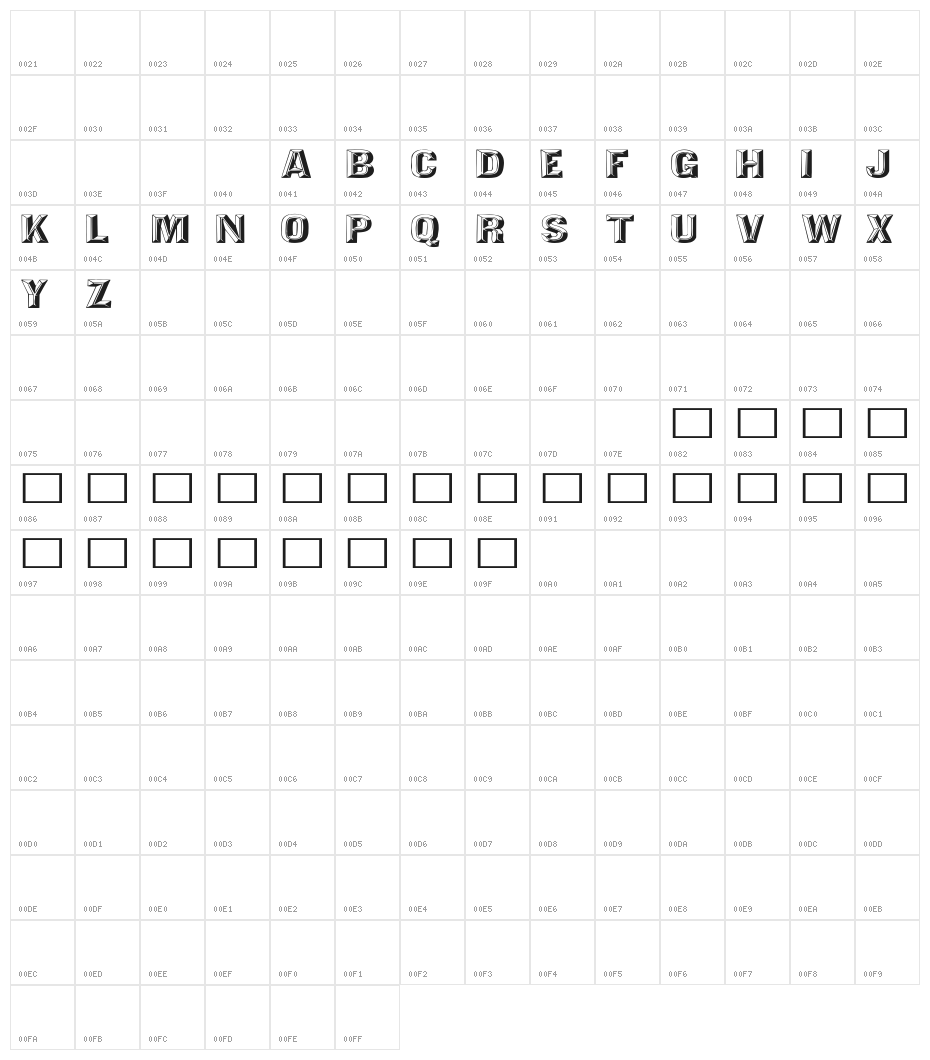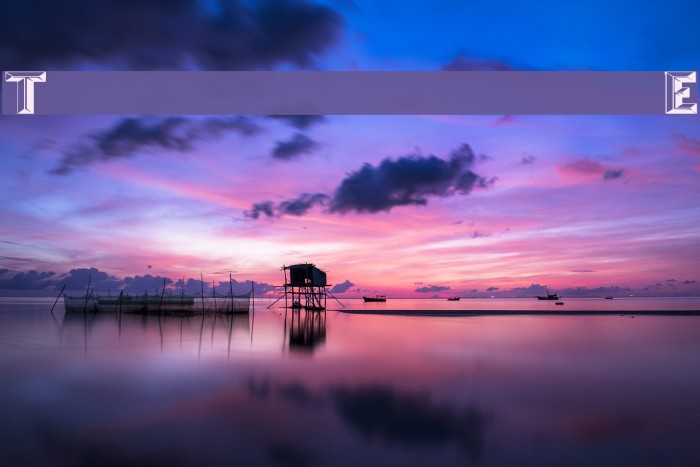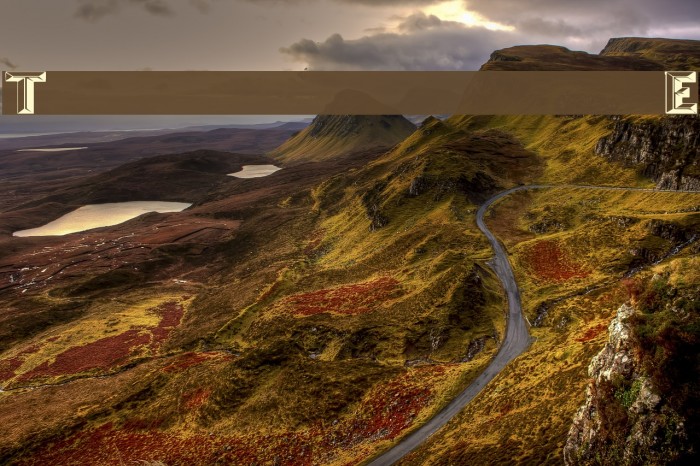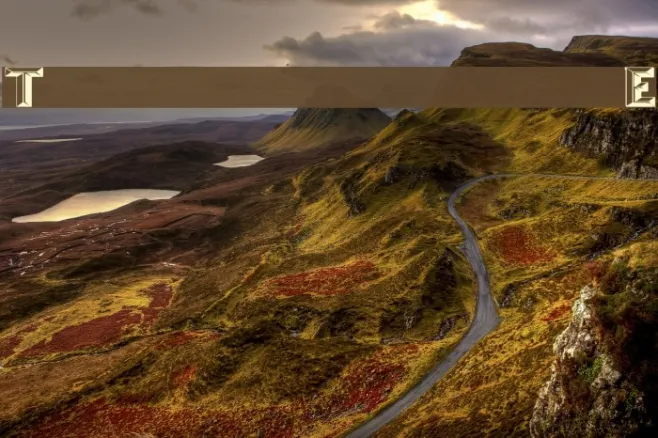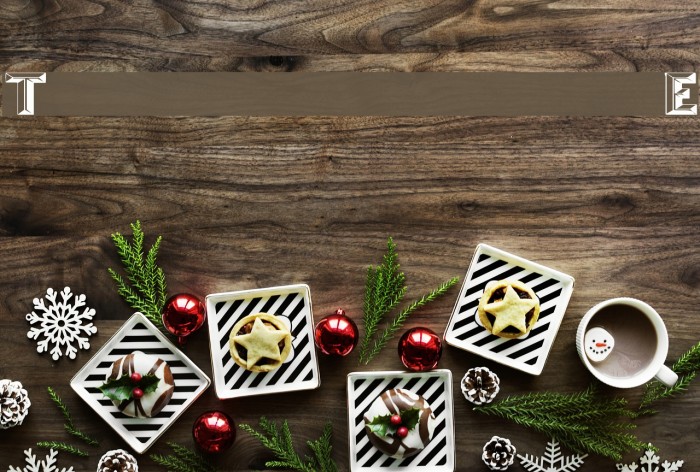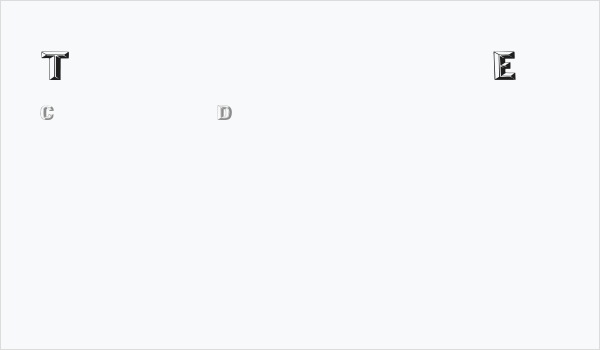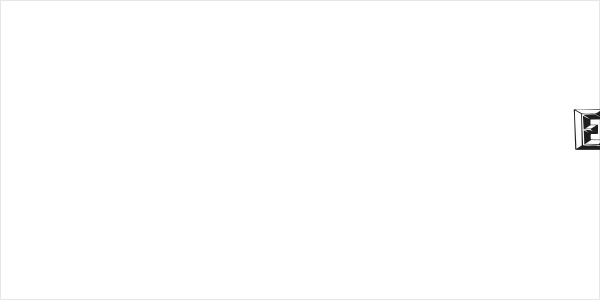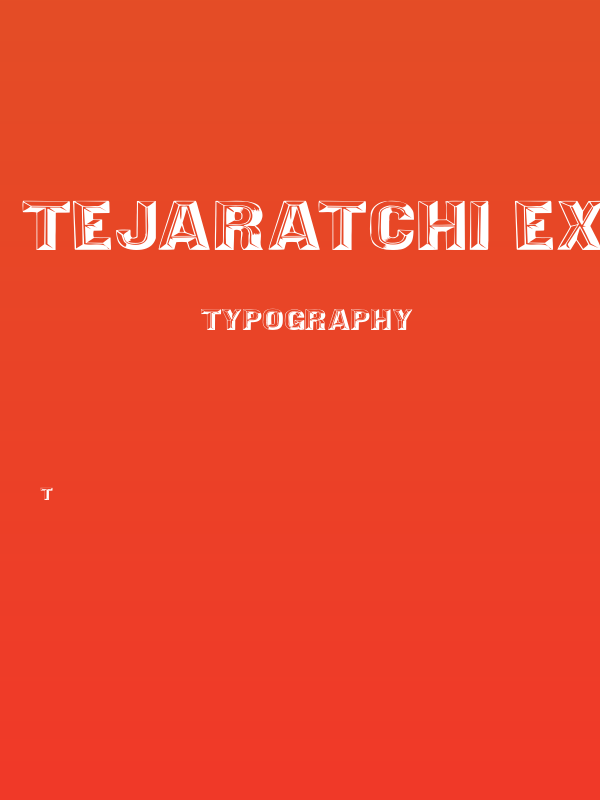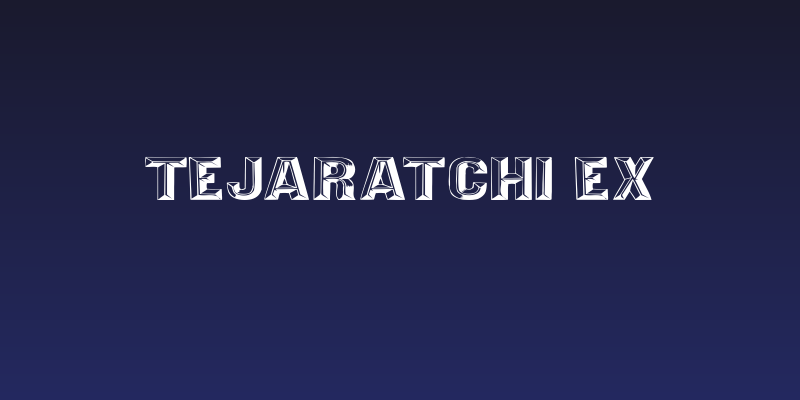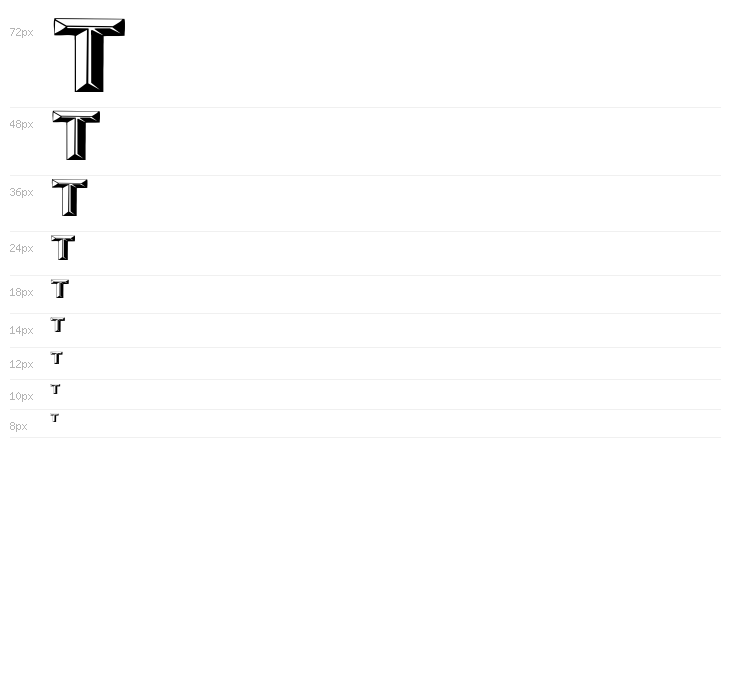
Tejaratchi Ex Font
Tejaratchi Ex Description
This font features a bold, three-dimensional style with a strong, shadowed effect that gives each character a sense of depth and prominence. The letters are uppercase and exhibit a geometric, block-like structure with sharp edges and clean lines. The shadowing is consistent across all characters, enhancing the visual impact and making the text stand out. This style is reminiscent of vintage signage or retro poster designs, where boldness and clarity are paramount. The font's distinct appearance makes it suitable for applications where attention-grabbing text is required.
| Proposed Projects | Ideal for retro-themed posters, vintage signage, branding, and headlines that require a strong visual impact. |